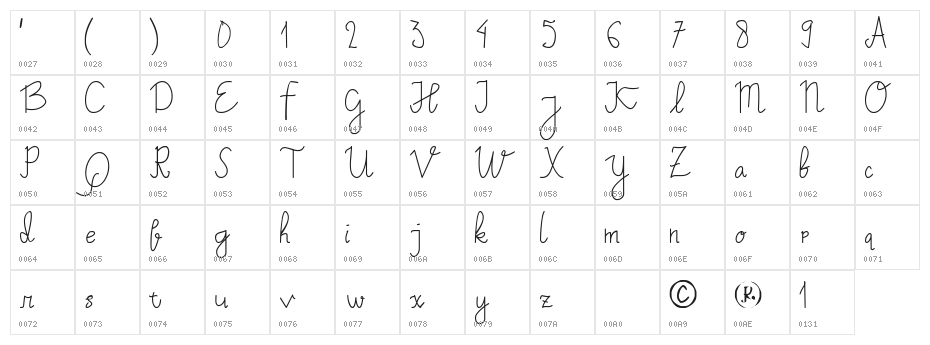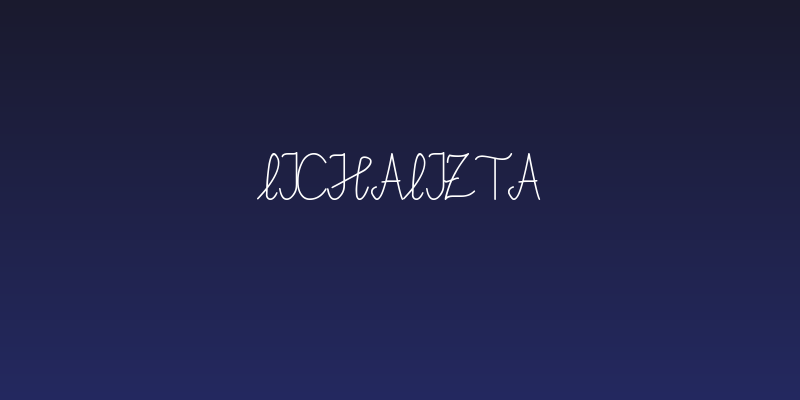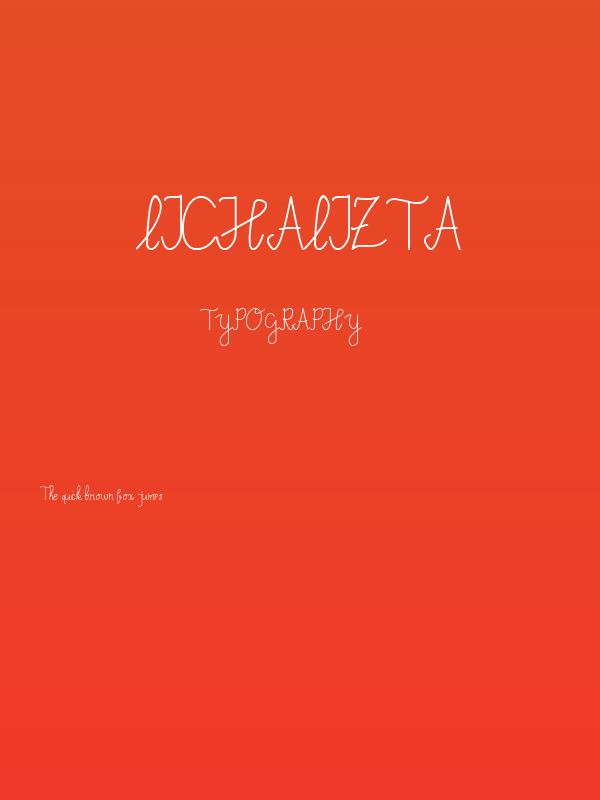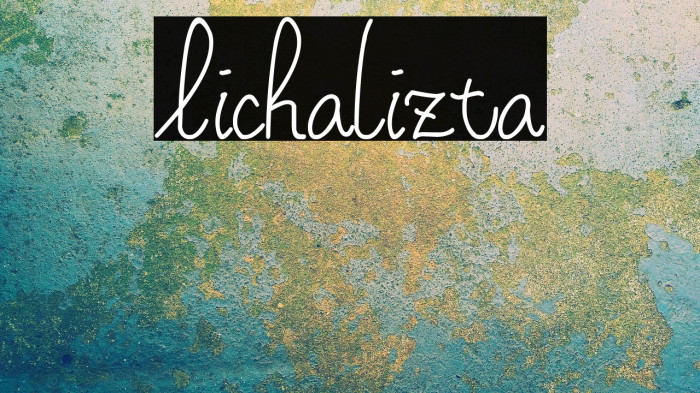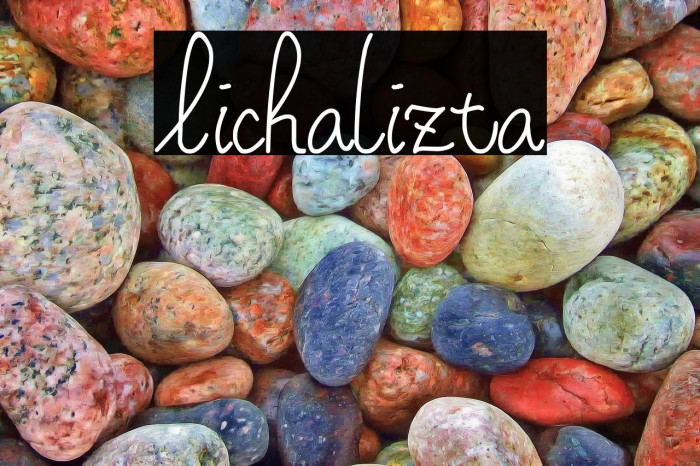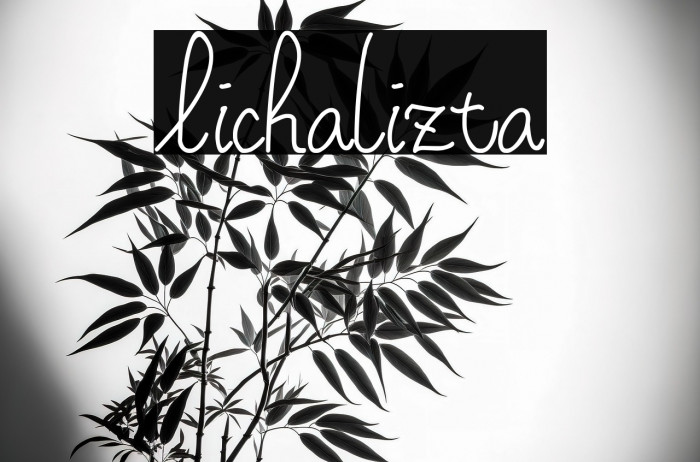
Lichalizta Font
Lichalizta Description
This font features a playful and whimsical handwritten style, characterized by its fluid and flowing letterforms. The uppercase letters are tall and slightly narrow, with a casual elegance that suggests a personal touch. The lowercase letters maintain a consistent style, with some characters featuring loops and curls that add to the overall charm. The numbers are clear and easy to read, with a similar playful quality. Special characters are integrated seamlessly, maintaining the font's cohesive look. This font exudes a sense of creativity and spontaneity, making it ideal for projects that require a personal or artistic flair.
| Use Case | Logos, Invitations, Creative projects |
| Proposed Projects | Ideal for greeting cards, invitations, personal branding, and creative projects. |